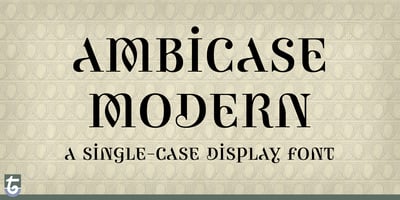
Ambicase Modern Font Family was designed by Craig Eliason and published by Teeline Fonts. Ambicase Modern contains 2 styles and family package options. Most fonts include uppercase and lowercase letters. Some experimentally-minded designers have proposed unicase typefaces as well: rather than having two different forms for a given letter, unicase fonts have one, chosen from the upper- or lowercase forms. Ambicase Modern takes the next step, offering not “either/or”, but rather “both/and”. Each letter in Ambicase Modern is a combination of its traditional upper- and lowercase forms, in a modern (didone) style. The inventive, hybrid forms that result are intriguing and handsome. Ambicase Modern stands out as a carefully crafted experimental font: its eccentric forms do not hinder its readability. It is suitable for high-style display settings. Ambicase Modern offers a large character set and extensive OpenType features. Most notably, in modern OpenType-aware applications, Ambicase Modern can be set in swash mode, which features sophisticated decorative flourishes that differ depending on whether the letter is at the beginning, middle, or end of a word. Ambicase Modern is available in two optical sizes: Regular and Poster. At very large sizes, the Poster cut, with its finer details, is recommended. For an extra bold variant, see its sibling typeface, Ambicase Fatface.